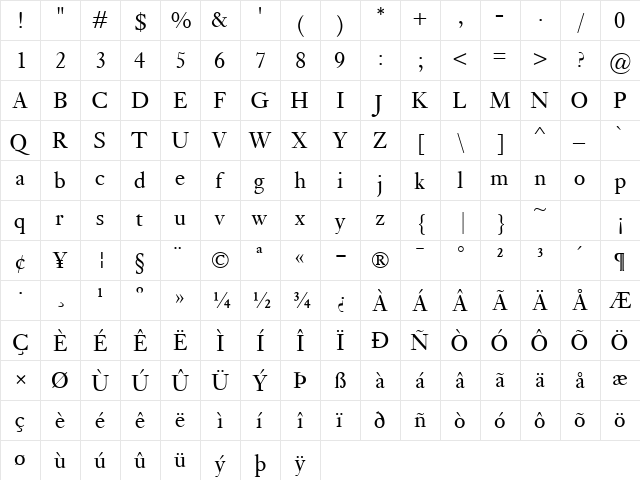
Kis Classico Regular
Design Context for Kis Classico Typeface
Kis Classico has the warm character of retro typography — evoking diners, record sleeves, and the golden age of print advertising.
Font Pairing: Combine Kis Classico with a simple slab or neutral sans — period-accurate companions reinforce the vintage feel without competing for attention.
Pro Tip: Lean into Kis Classico's period character by pairing it with aged paper textures, muted colour palettes, and vintage illustration styles.